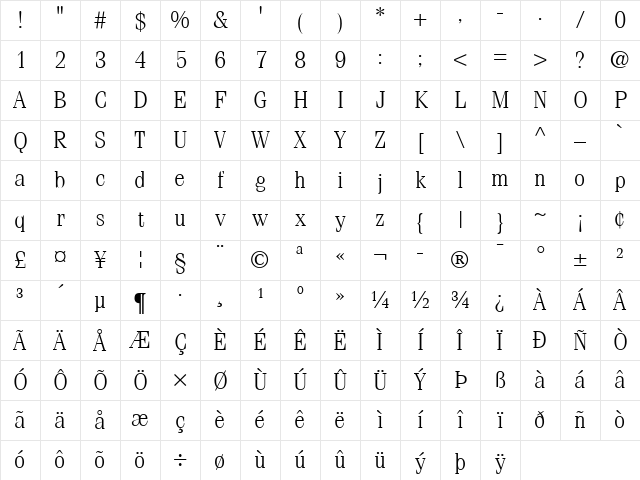
ITCFenice LT Light Regular Free Font
ITCFenice LT Light Regular
Complete ITCFenice LT Light Regular glyph index. Displaying only characters natively supported by ITCFenice LT Light Regular font.
Design Context for ITCFenice LT Light
ITCFenice LT Light is a composed and adaptable typeface that performs quietly and consistently across a wide range of design contexts. Its slender proportions lend an understated elegance to any composition.
Pro Tip: Use ITCFenice LT Light in both headline and body roles to test its range before committing to a single application.